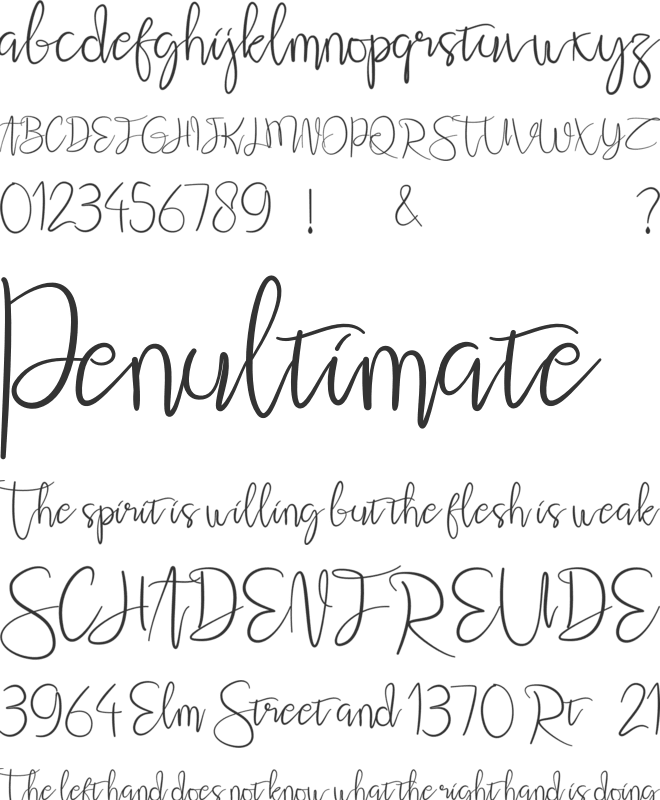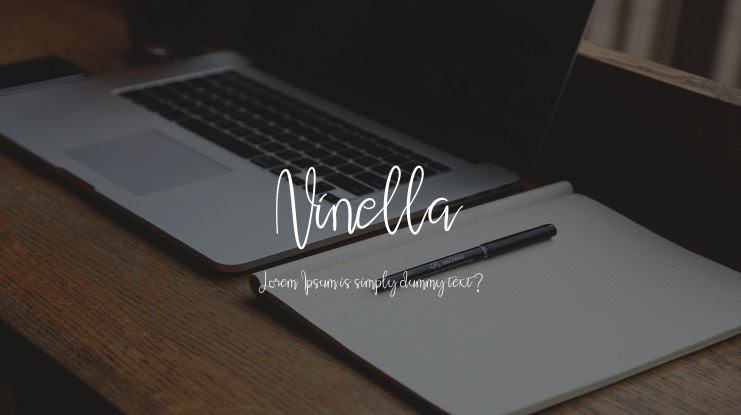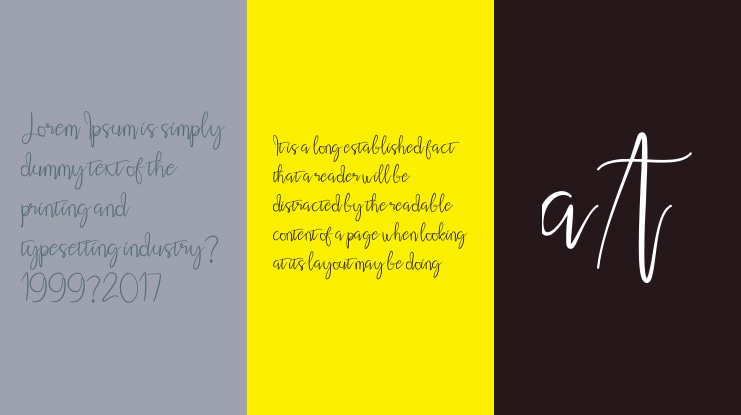
Ninella Font
Ninella is a script font, with sweet touches and beautiful curve on each letter. This font is great for your next creative project.
Ninella is perfect for fashion magazines, product watermarks, wedding designs, social media posts, advertisements, product designs, label product, logo product cosmetics, logo product perfumes, photography, invitation, and any projects that need a signature taste.